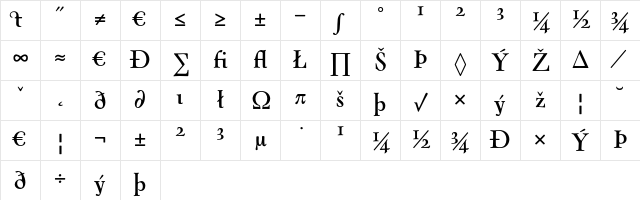
Oneleigh BoldExpert
Style: BoldExpert
Design Context for Oneleigh
Oneleigh is a composed and adaptable typeface that performs quietly and consistently across a wide range of design contexts. Its bold stroke weight gives it real presence on the page.